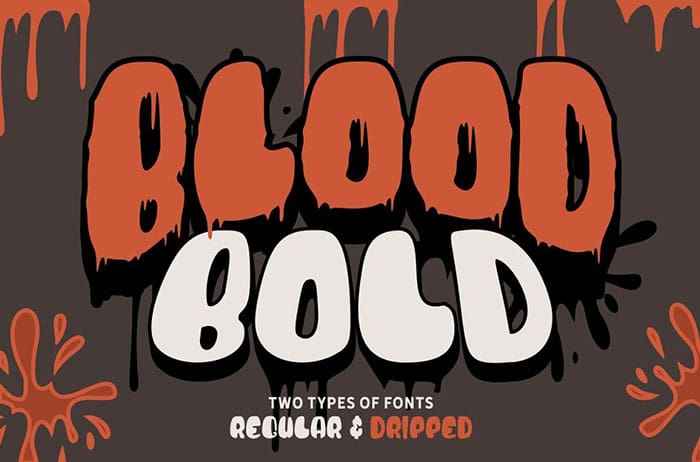
Blood Bold Halloween Display Font is suitable to use for casual purpose especially children related Halloween event with playful style. This font is available only for personal use. Created this font by StringLabs. You can also search more free Display Fonts. Thanks!